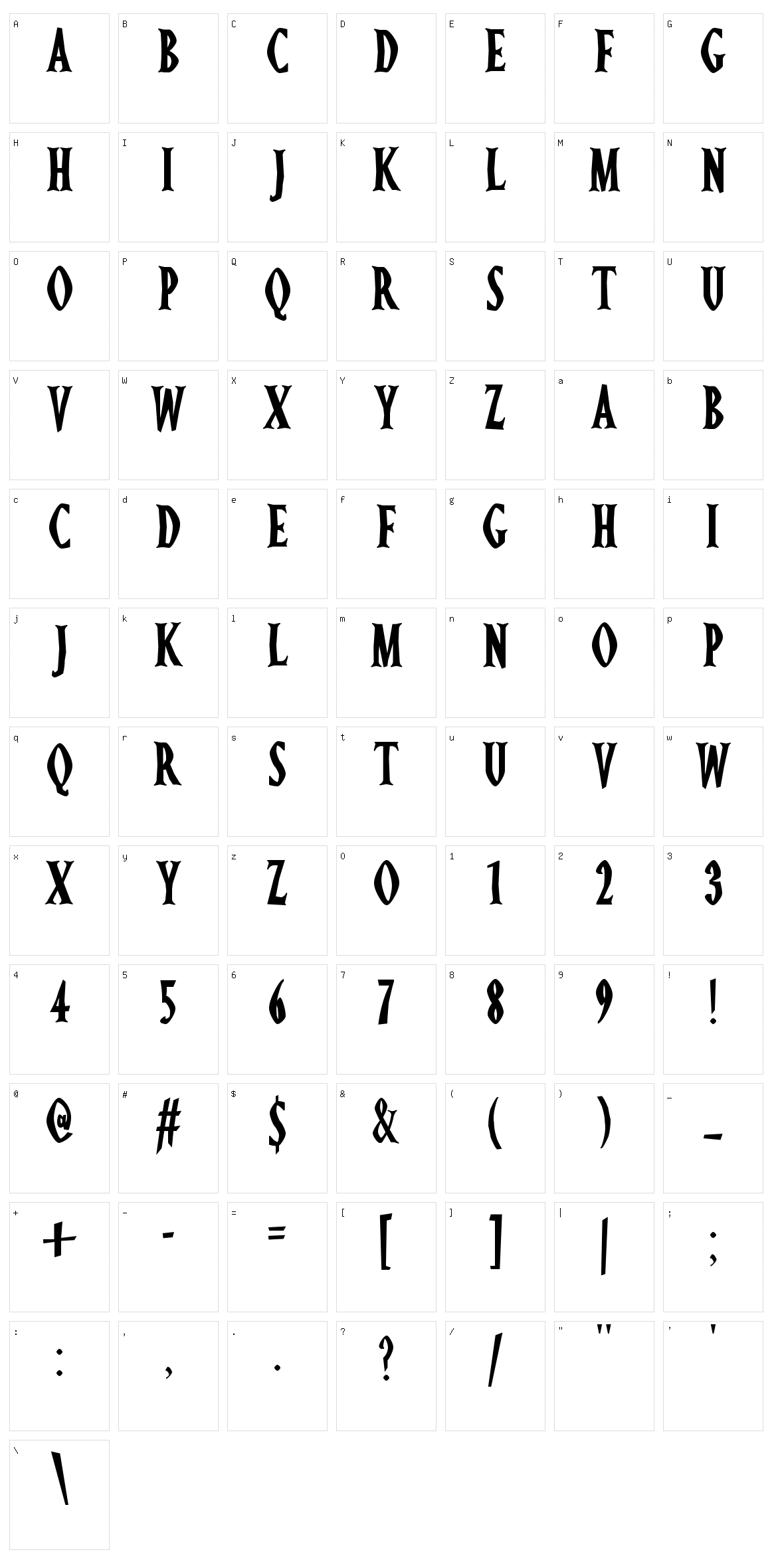
The free font Ghostz is carefully designed by Hawtpixel, showcasing a thoughtful balance of creativity and usability and falls under the Horror font style. When you download the ZIP file, it contains only 52.45 KB of font files, making it lightweight and quick to download. Please review the license details below to understand permitted usage and distribution rights. If license information is not available, we recommend using this font for personal projects only or contacting the author directly for commercial usage permissions.